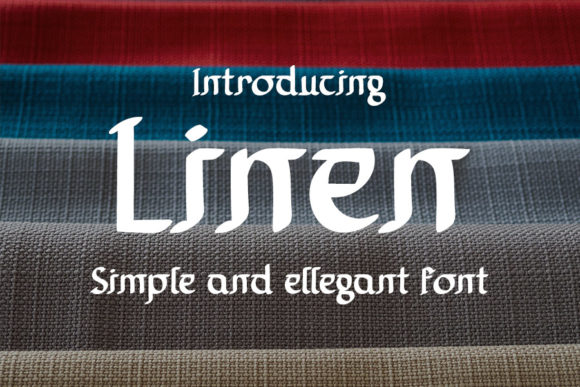
Step into a world of whimsical charm and playful expression with Linen Font, a captivating display font family meticulously crafted to capture the innocence and joy of childhood. This font is not just a collection of letters and characters; it's an invitation to unleash your creativity and infuse your designs with a touch of magic.
Imagine creating kids' shirts that burst with personality, featuring bold and playful text that leaps off the fabric. Linen Font is the perfect companion for your designs, adding a touch of enchantment to every word and phrase. The smooth curves and graceful lines of this font dance across the surface, evoking a sense of wonder and excitement that will captivate young hearts.
With Linen Font, you're not limited to kids' shirts. Its versatility shines in fashion branding and editorial designs, bringing a touch of whimsy and sophistication to your projects. The font's intrinsic boldness commands attention, ensuring that your messages stand out and leave a lasting impression.
Let your imagination soar as you explore the limitless possibilities of Linen Font. Whether you're creating marketing materials, invitations, posters, or any other visual masterpiece, this font will elevate your designs to new heights. Its user-friendly nature makes it accessible to both seasoned designers and those just starting their creative journey.
Join the ranks of designers who have discovered the magic of Linen Font. Experience the joy of creating designs that resonate with children and adults alike, evoking smiles and sparking imaginations. Embrace the power of this font to transform ordinary words into extraordinary expressions of creativity and imagination.